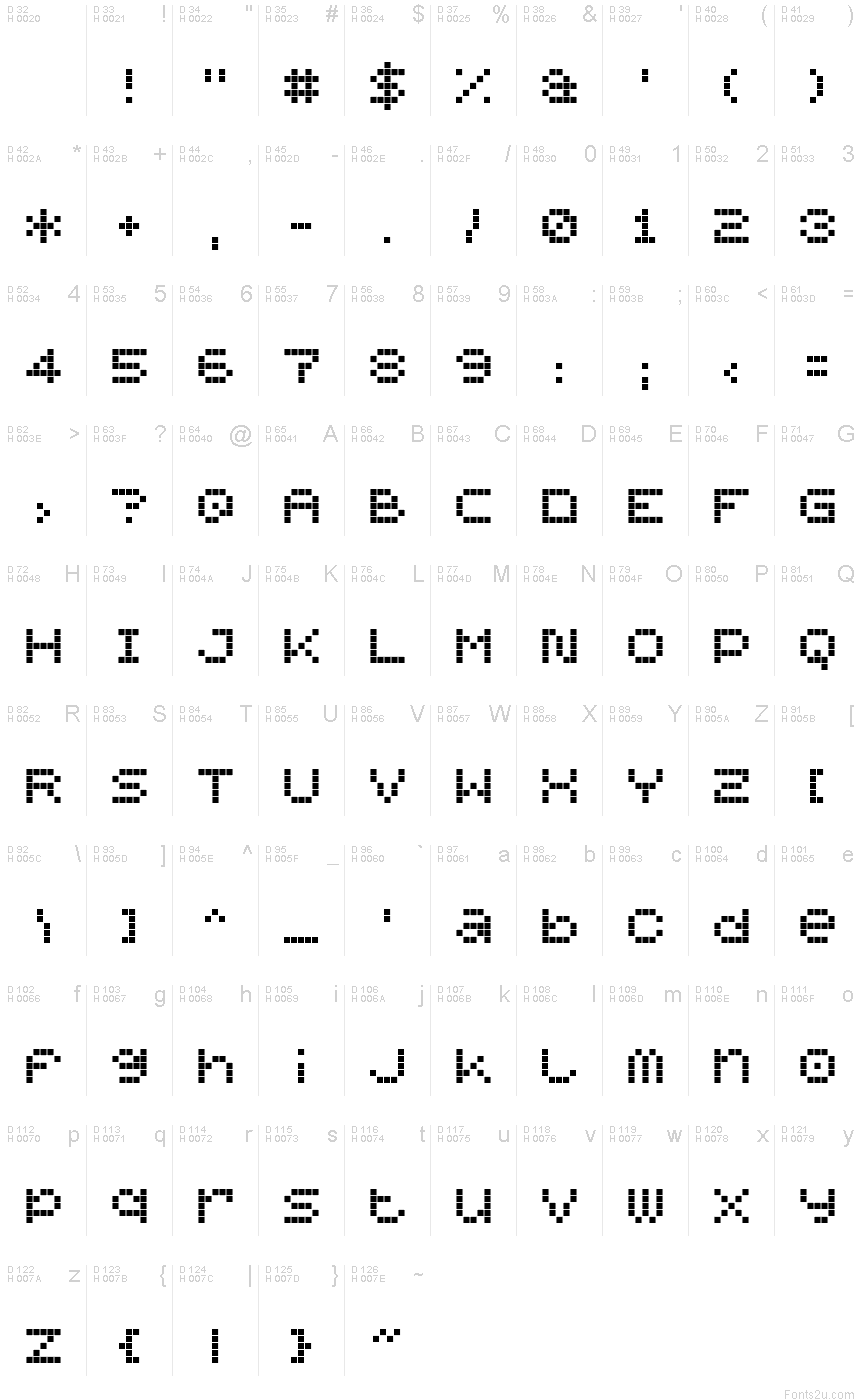
Mobile Man
Mobile Man by dustBUST Fonts, from 2000, is a free digital display font with a grid-based rhythm of square blocks and stepped cuts. The letters read like pixelated panels, with repeated voids and straight edges giving the face a clipped arcade-style cadence.
Mobile Man suits video game titles, tech posters, event flyers, retro computing graphics, and logo accents because the block-built forms keep that screen-era signal clear. It also works for signage, packaging labels, app splash screens, and short header treatments that need a mechanical, 8-bit pulse without extra ornament.